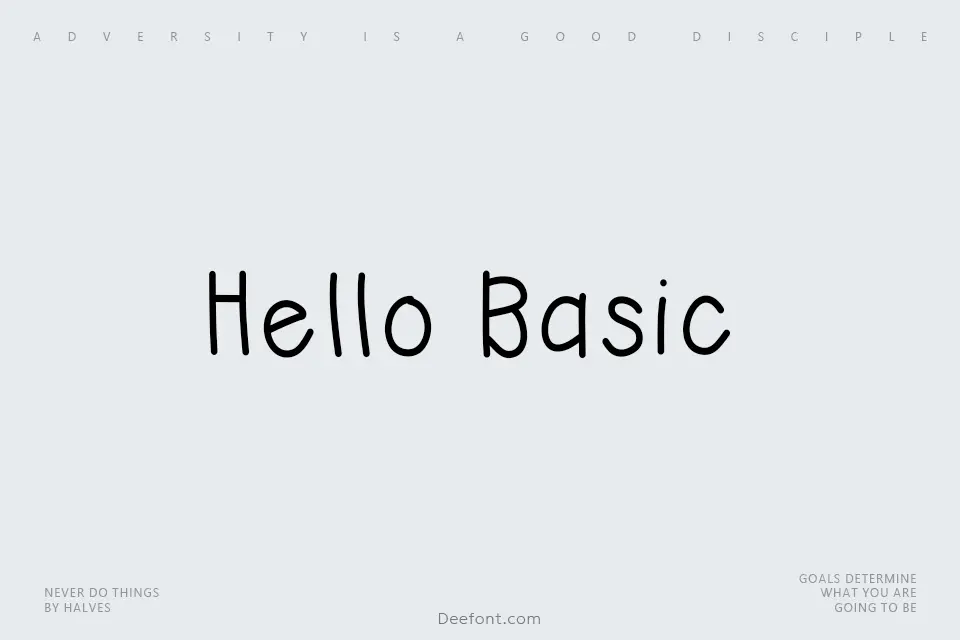
Hello Basic Font
Hello Basic is a charming handwritten script font with a child-like, friendly aesthetic. Its soft, rounded letterforms and natural pen-stroke variations convey warmth and approachability, making it ideal for educational materials, children's books, greeting cards, posters, and playful branding projects. The font's legible yet expressive character works well for headlines, titles, and display usage where you want to add personality without sacrificing readability. With 198 carefully crafted glyphs and multi-language support, it brings an authentic handmade quality to digital designs targeting families, schools, and creative industries.